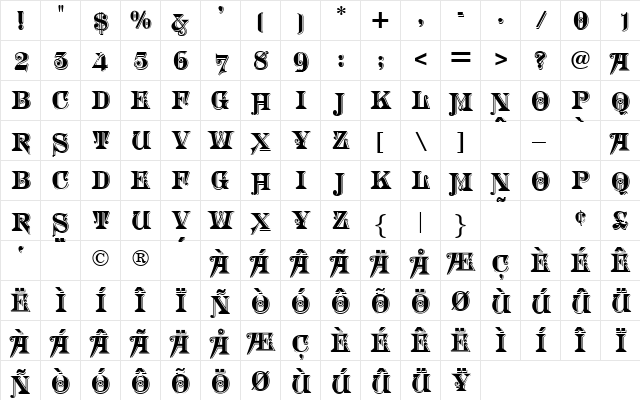
OPTIMorgan-TwentyNine Regular
Design Context for OPTIMorgan-TwentyNine Typeface
OPTIMorgan-TwentyNine is a composed and adaptable typeface that performs quietly and consistently across a wide range of design contexts.
Pro Tip: Use OPTIMorgan-TwentyNine in both headline and body roles to test its range before committing to a single application.